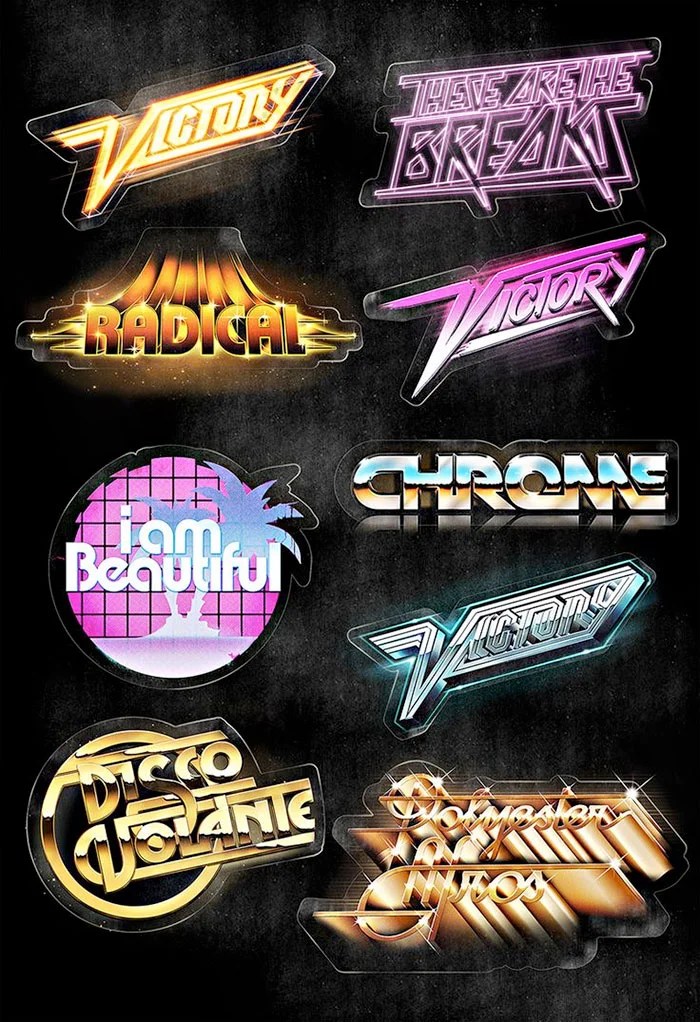
Fonts In Use 1980S
Fonts In Use 1980S. Raiders of living dead (1986) movie poster, trailer and promotion 1986. Contemporary uses emulating a 1980s style.
1980s
Examples Of Fonts In Use Tagged With “1980S Style”.
Contemporary Uses Emulating A 1980S Style.
The Digital Era Was Just Beginning In The 1980S And Many Type Styles Used This Concept To Create What Was Then A Futuristic Style.
Reminiscent Of Games, Films, And Music Of The Era, This Font Is Ideal For Giving A Retro Touch To Your Project.